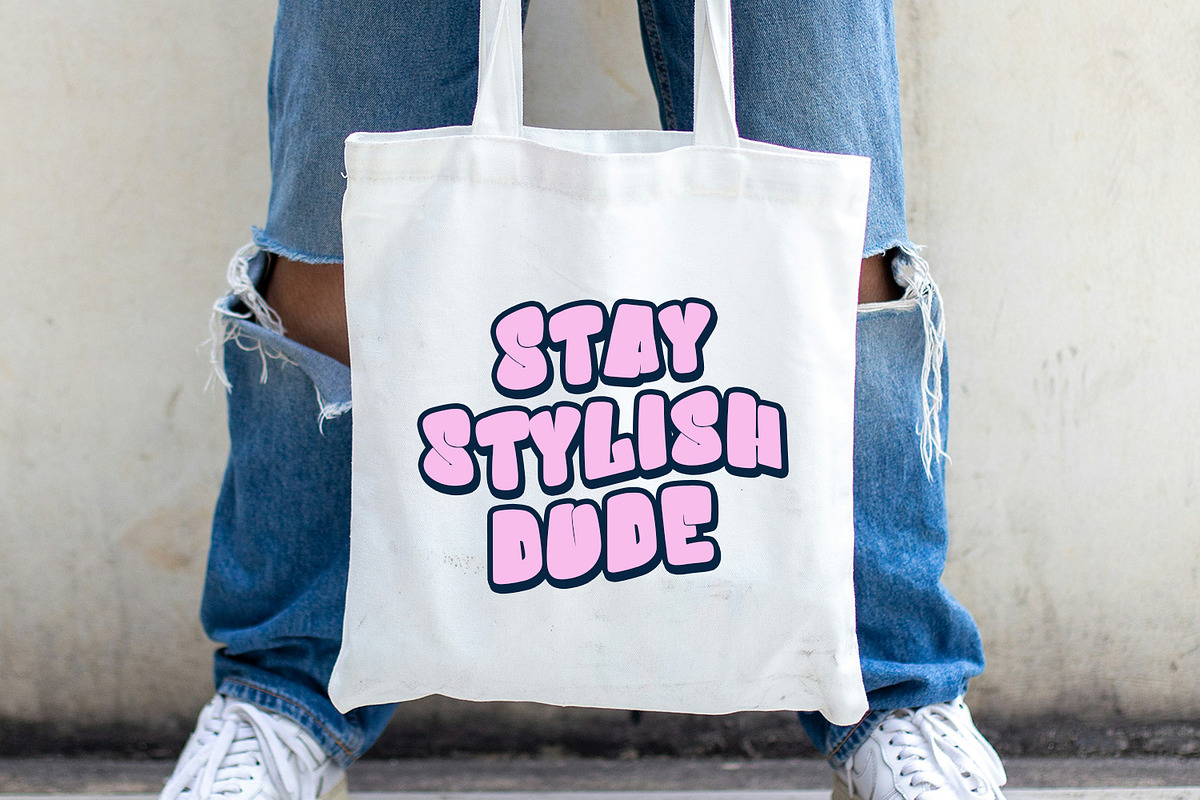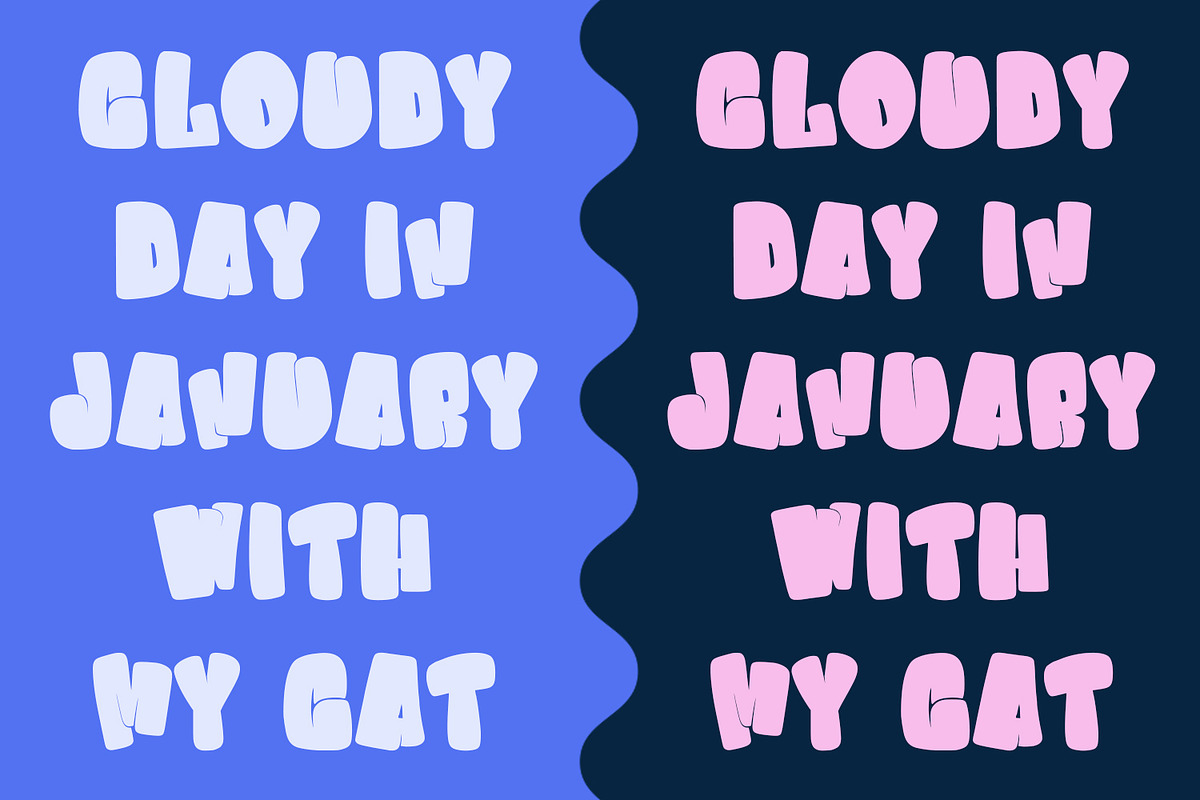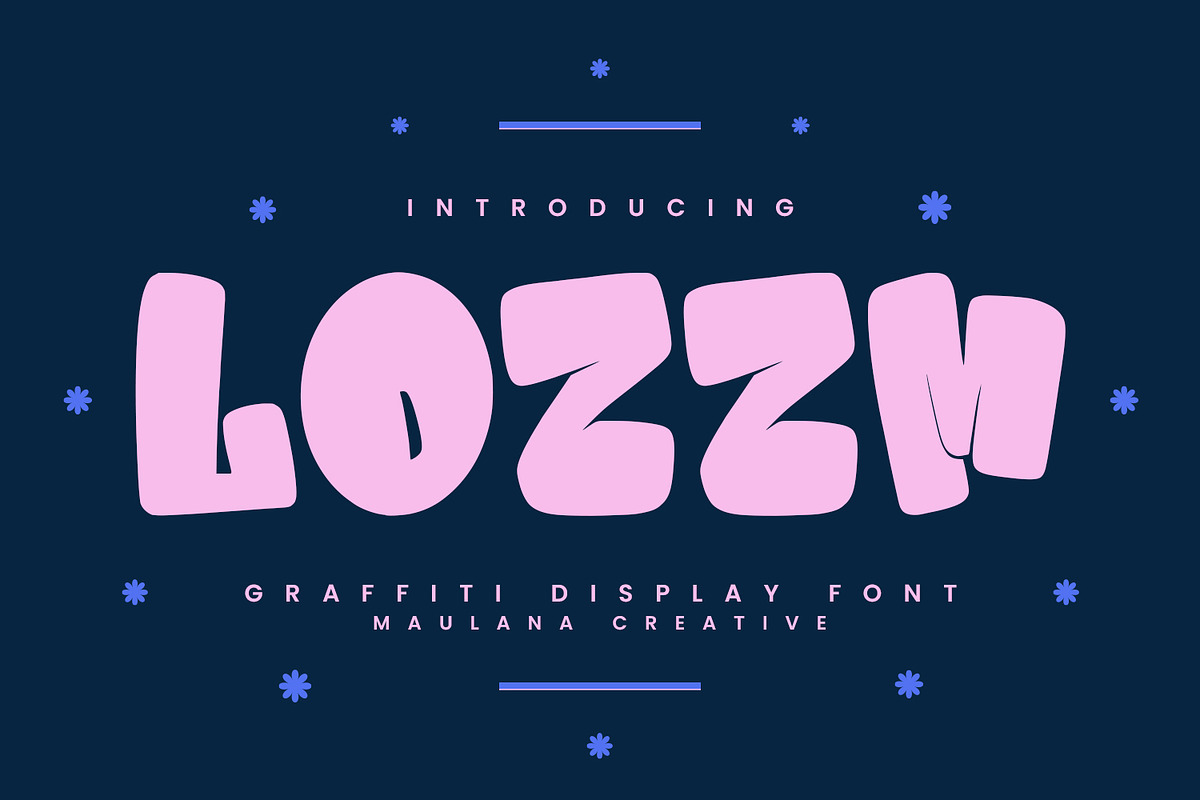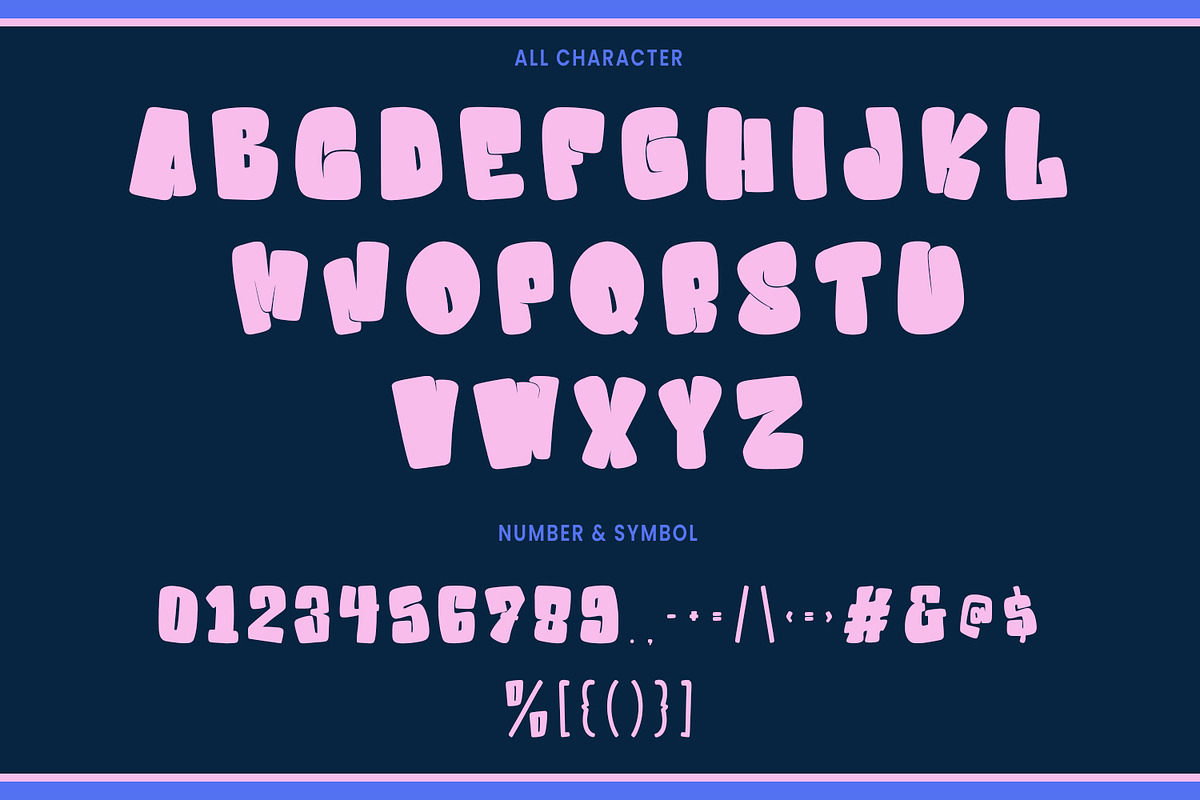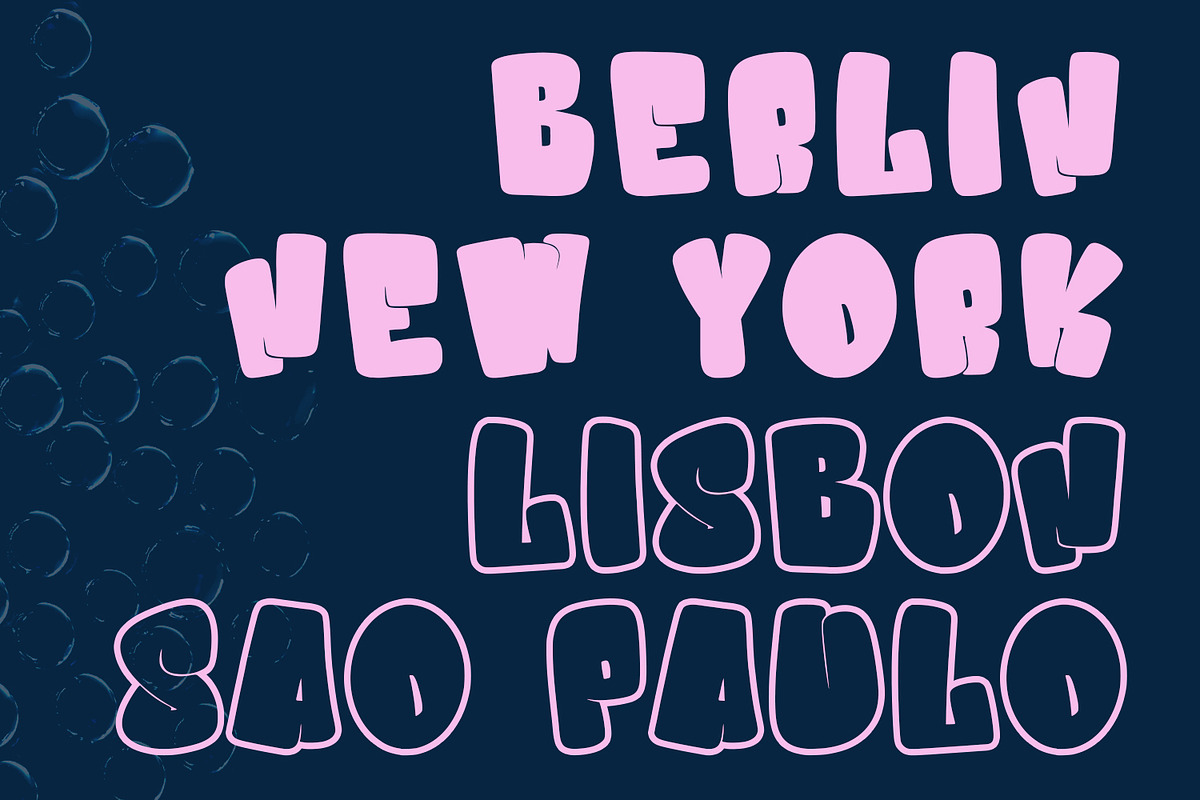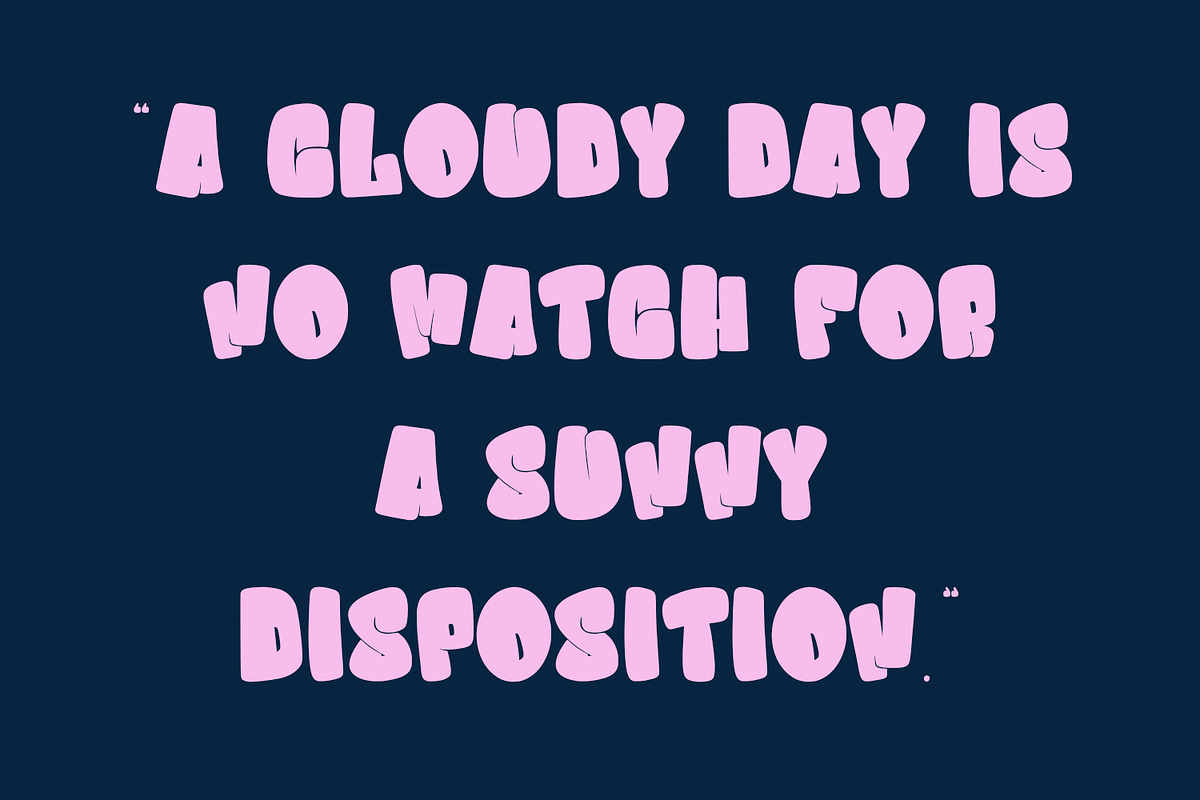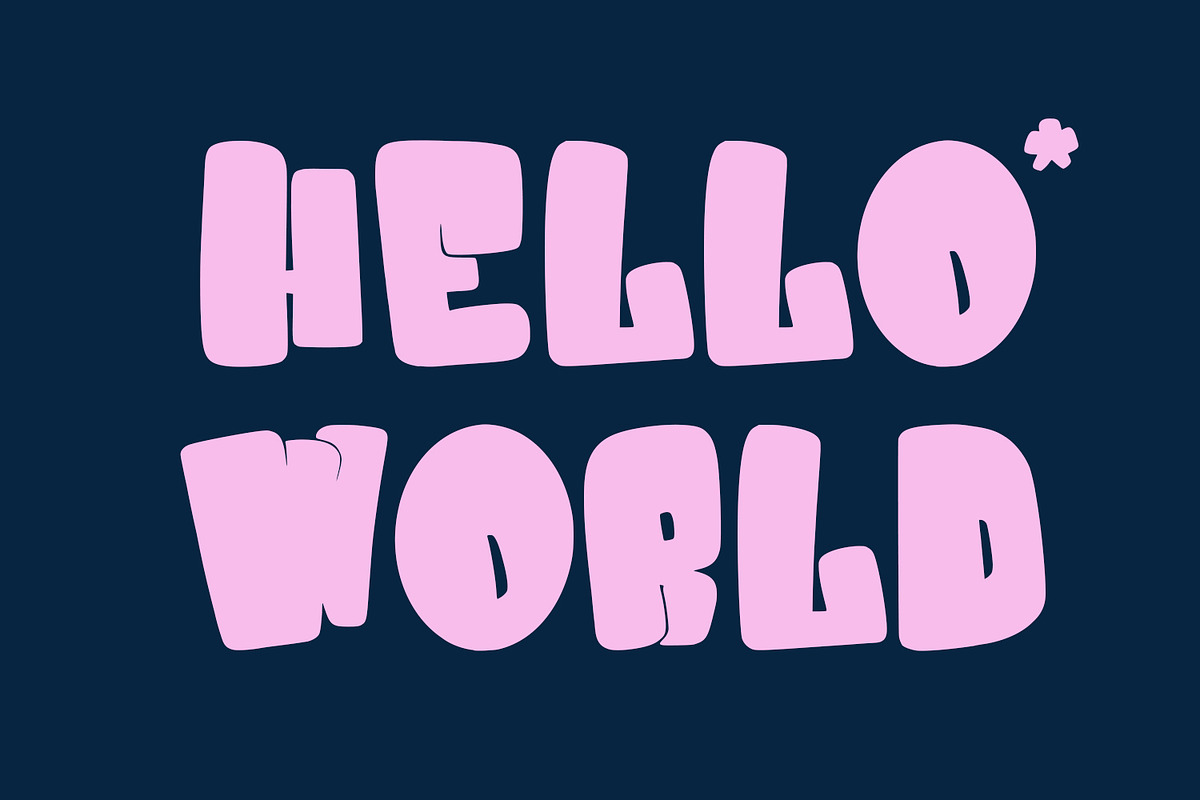
Lozzm Graffiti Display Font
Lozzm graffiti display typeface. Bold stroke, fun character with a bit of ligatures and alternates. To give you an extra creative work. Lozzm graffiti display typeface support multilingual more than 100+ language. This font is good for logo design, Social media, Movie Titles, Books Titles, a short text even a long text letter and good for your secondary text font with script or serif. Make a stunning work with Lozzm graffiti display typeface.